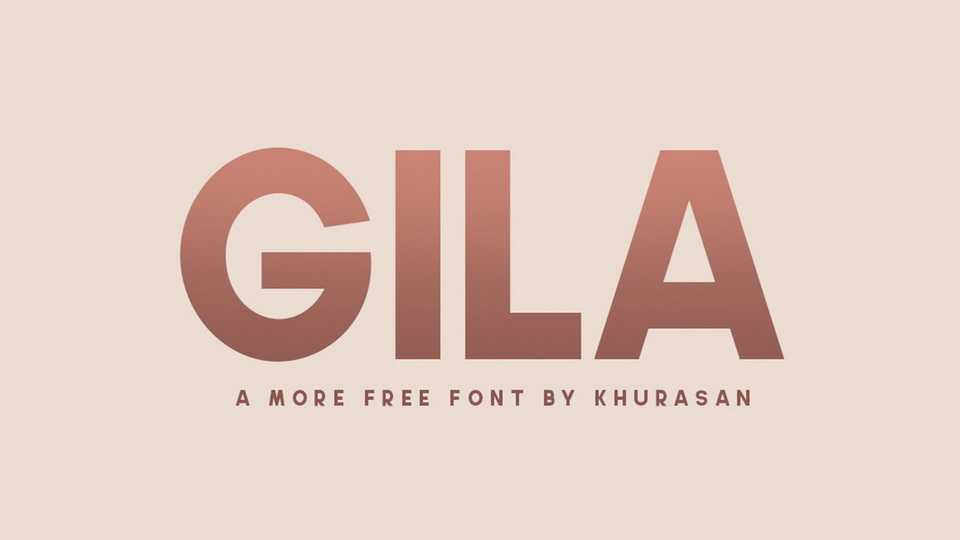
Download Gila typeface, a bold and strong geometric sans serif font family in two weights. Gila works best for posters and headlines, short text paragraphs.